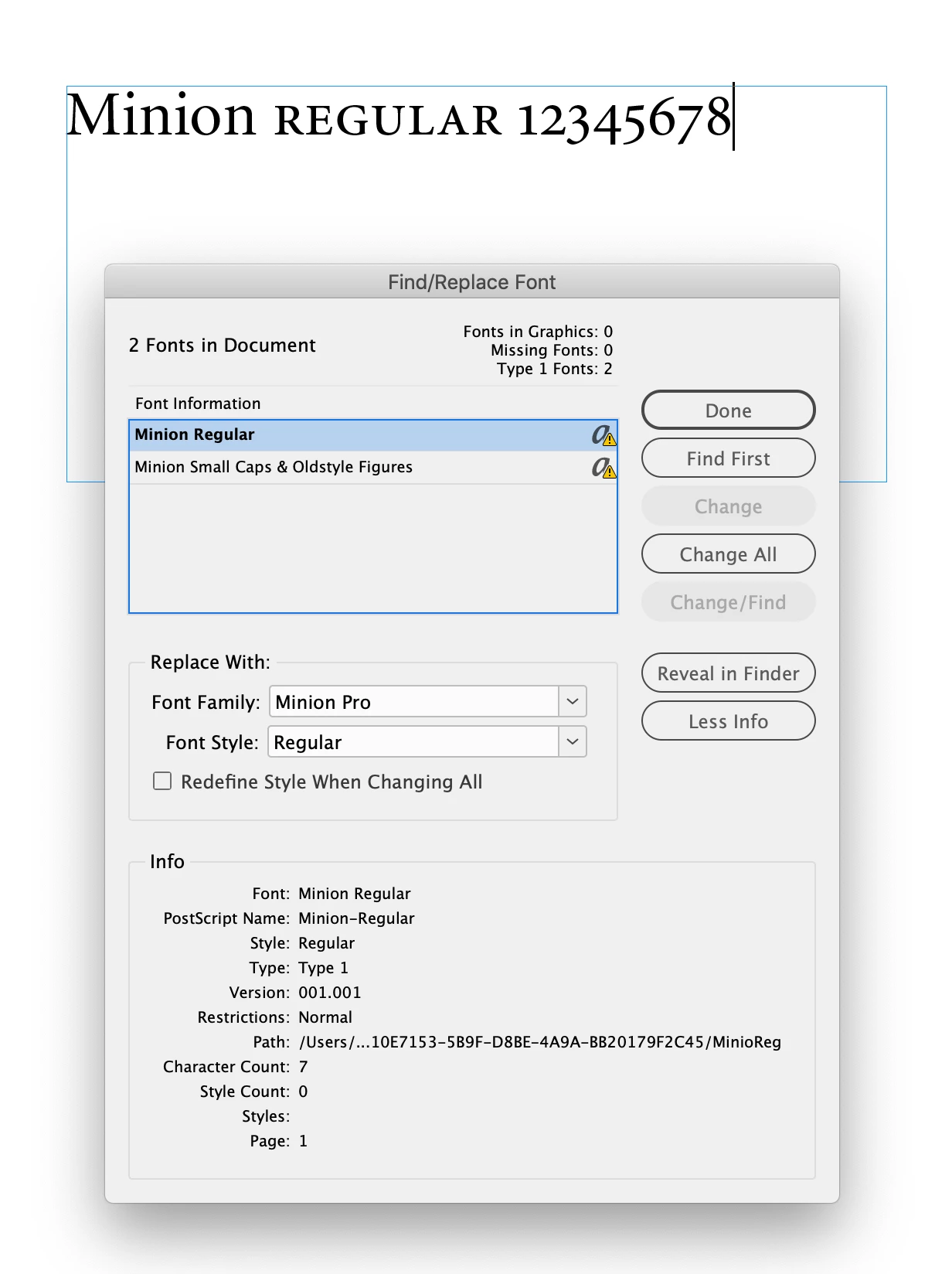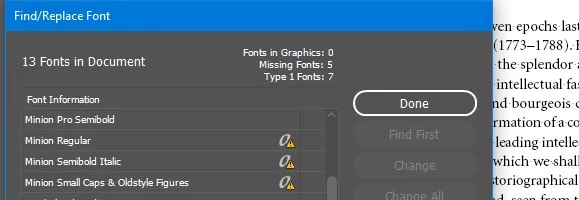
Type1 Fonts and Oldstyle Figures
This feels like it might be a silly question, but here goes. We have some old files we did not create to which we have to make some changes and we're trying to decide whether to swap out the Type1 fonts.
We work almost exclusively in Windows and the files were created on a Mac in InDesign CC 2015 and use the Minion Type1 font in main text. The PDF sent with the InDesign file has oldstyle figures throughout. Opening the InDesign files on the PC it doesn't show old oldstyle figures, and looking in the PDF using both Acrobat's editing and PitStop, it shows the oldstyle figures as just Minion-Regular and not the small cap and oldstyle figures font.
How can that be?
Don't put off the inevitable. Change the doc to OTF versions of Minion and do the page checking to make sure all the characters survived. If the document is founded on Paragraph Styles and Character Styles then this shouldn't be too bad on time and Quality Control.
Hi @KenWK , If you check the font usage in the InDesign file are the Type 1 Minion versions listed but missing? Can you show a capture of the ID Find/Replace Font dialog
Rob, As you can see from the screen shot below (taken on the PC) we have the fonts loaded but the old style figures don't show. There are no font changes on the numbers in InDesign so I'm not sure how they cold be in the PDF. I was wondering if there might be something on the Mac (they way it handles fonts?) that resolves things and uses the old style figures...somehow?? But then, what would the InDesign setting be?
Either that, or the InDesign files we received did NOT create the PDF they sent.
I think you're seeing the difference between how old PostScript fonts and today's OpenType versions handle numbers.
Referring to your last screen capture, to have old style numbers with a PostScript font required a separate font, Minion Small Caps & Oldstyle Figures.
Today's OpenType version of Minion Pro has the oldstyle figures built into the main fonts. Just select the numbers, then select OpenType / Proportional Oldstyle. Or create a character style set to use Proportional Oldstyle and apply it to the numbers.
But with PostScript, you need to have that additional Oldstyle Figures font installed, and then search for numbers in the document and apply the Oldstyle font to the figures. A character style set to use the Oldstyle font would help speed up the task, and you can also use a GREP to apply the character style automatically.
@Willi Adelberger's suggestion to migrate to Minion Pro (OpenType) is the best solution because it solves the problem not just for today, but in the future, too. Your PostScript fonts are scheduled to be discontinued very soon, either in a few weeks when 2023 is launched at Adobe Max, or a few weeks later. But it's not long away from now!
You should use OTF fonts and not T1 fonts. You have to change anyway soon. Only OpenType supports different numeral types.